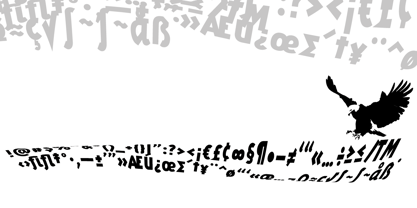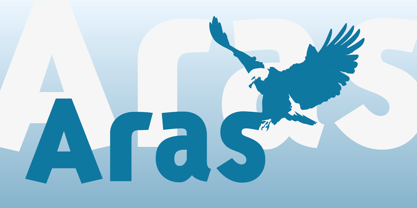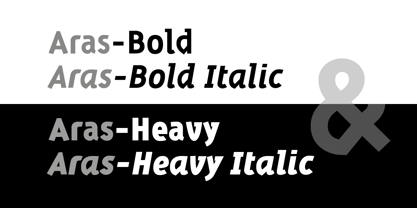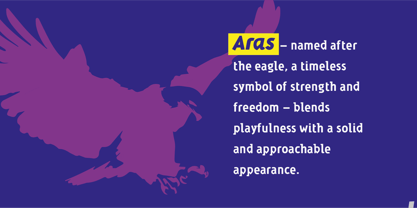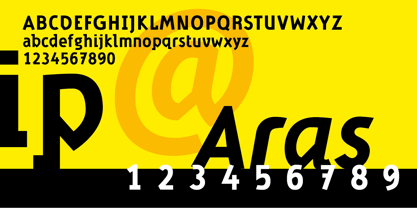
The Aras Font Family was designed by Martin Verstraaten and published by Martin Verstraaten. Aras contains 4 styles and family package options. More about this family
Aras – named after the eagle, a timeless symbol of strength and freedom – blends playfulness with a solid and approachable appearance. The typeface balances friendliness with authority, making it versatile across many design contexts. Its subtle, surprising details bring a sense of character and individuality without ever compromising readability. Aras-Bold and Aras-Heavy are especially well-suited for headlines, introductions, and statements that need to stand out: powerful, clear, and inviting while retaining a touch of elegance. Whether applied in digital environments or in high-quality print, Aras maintains its strong personality and ensures a consistent, engaging typographic voice.
About Martin Verstraaten
Martin Verstraaten born 1958 in Delft, the Netherlands. He studied drawing and sculpting at the Teachers Training Academy ZWN from 1976 to 1981. Between 1986 and 1990 he specialized in Graphic & Typographic Design at the Royal Academy of Fine Art in The Hague. His work consists of different disciplines; font design, graphic design, photography and painting.